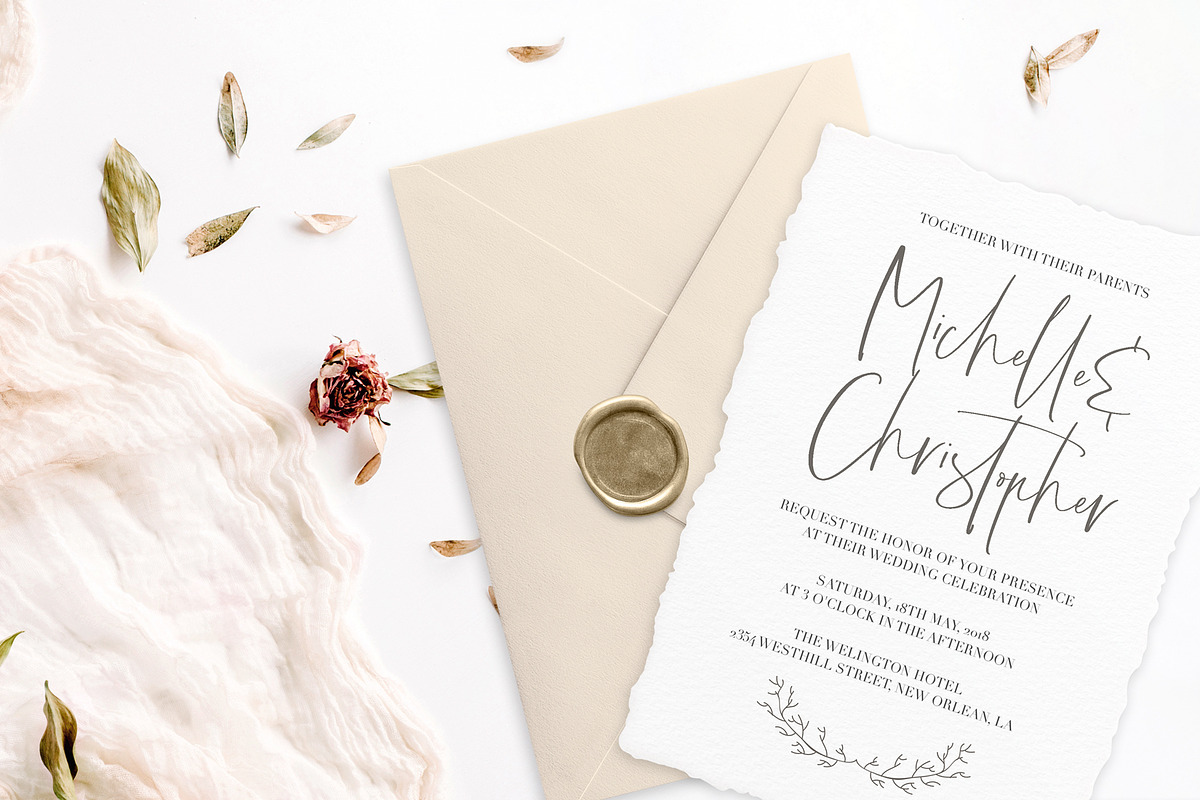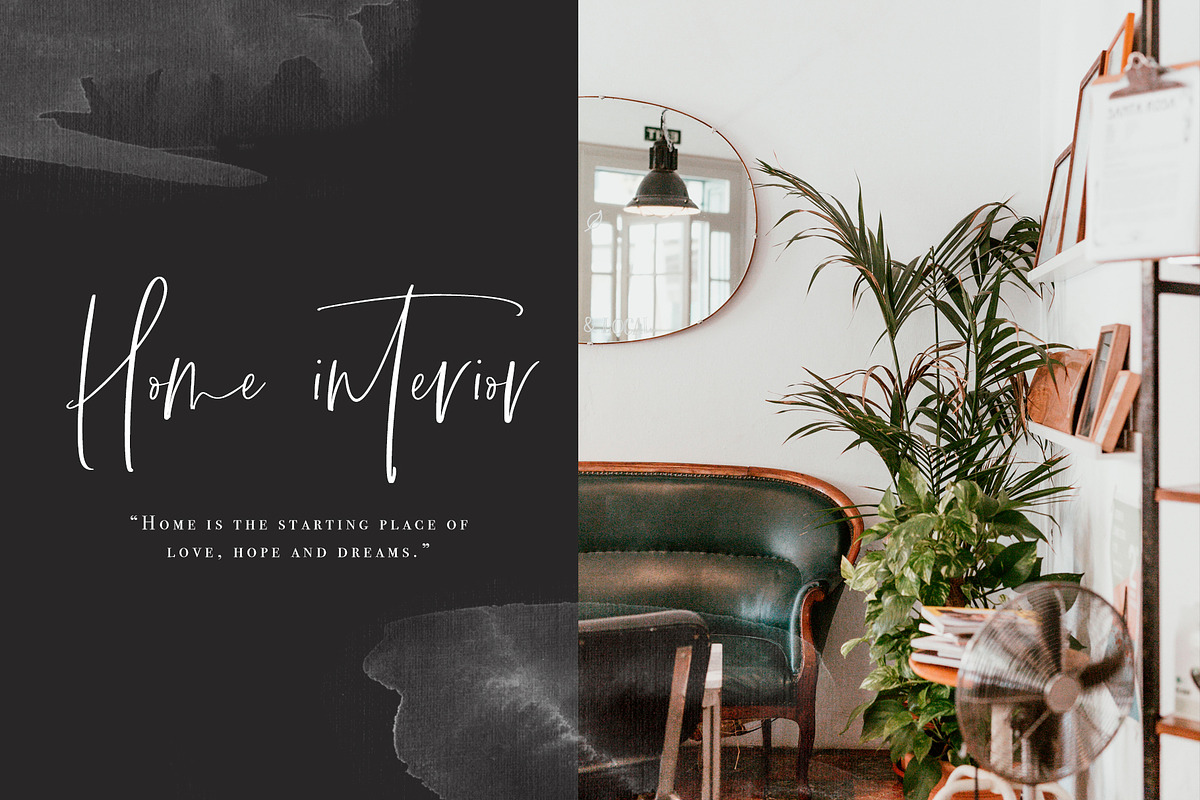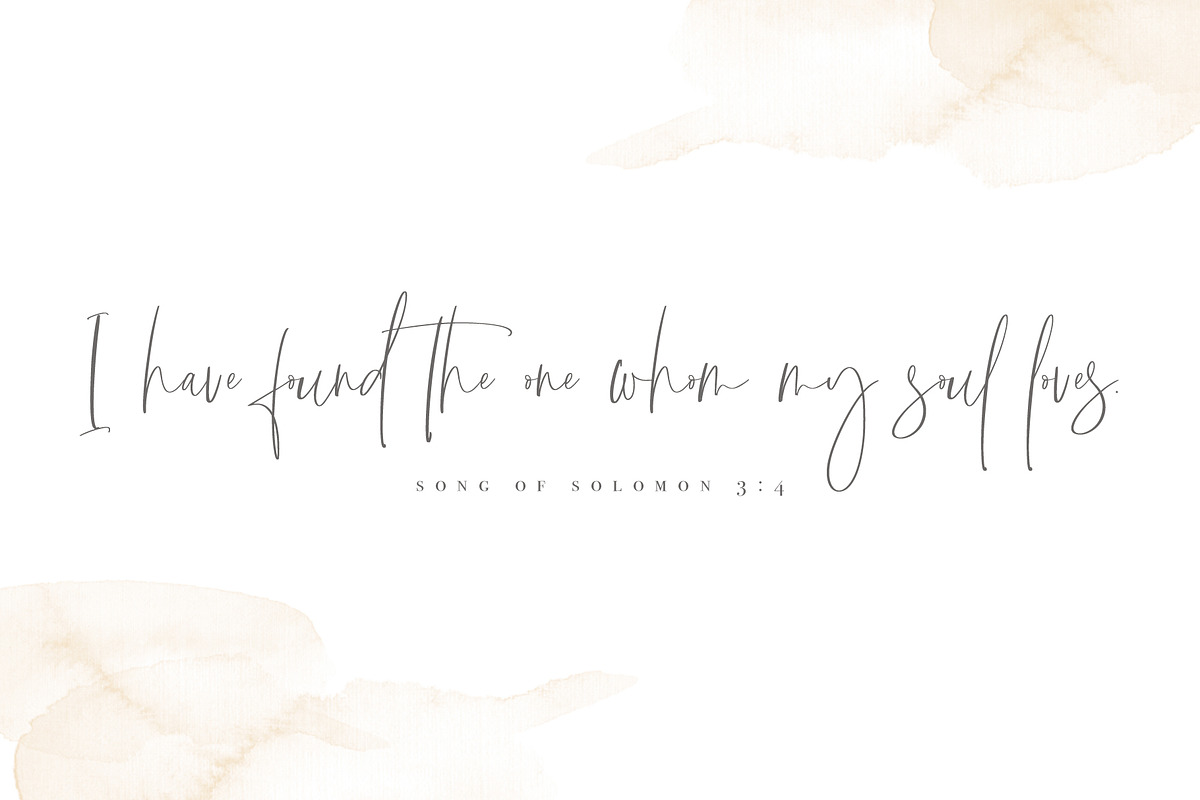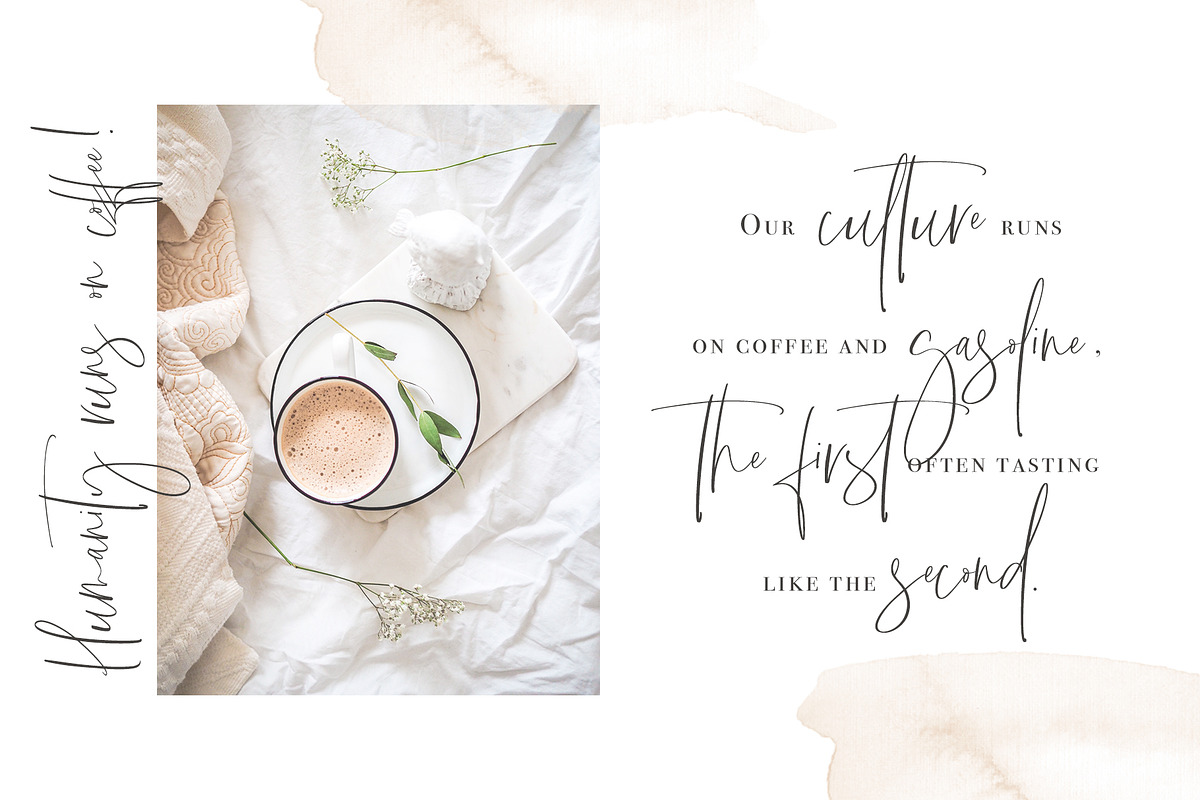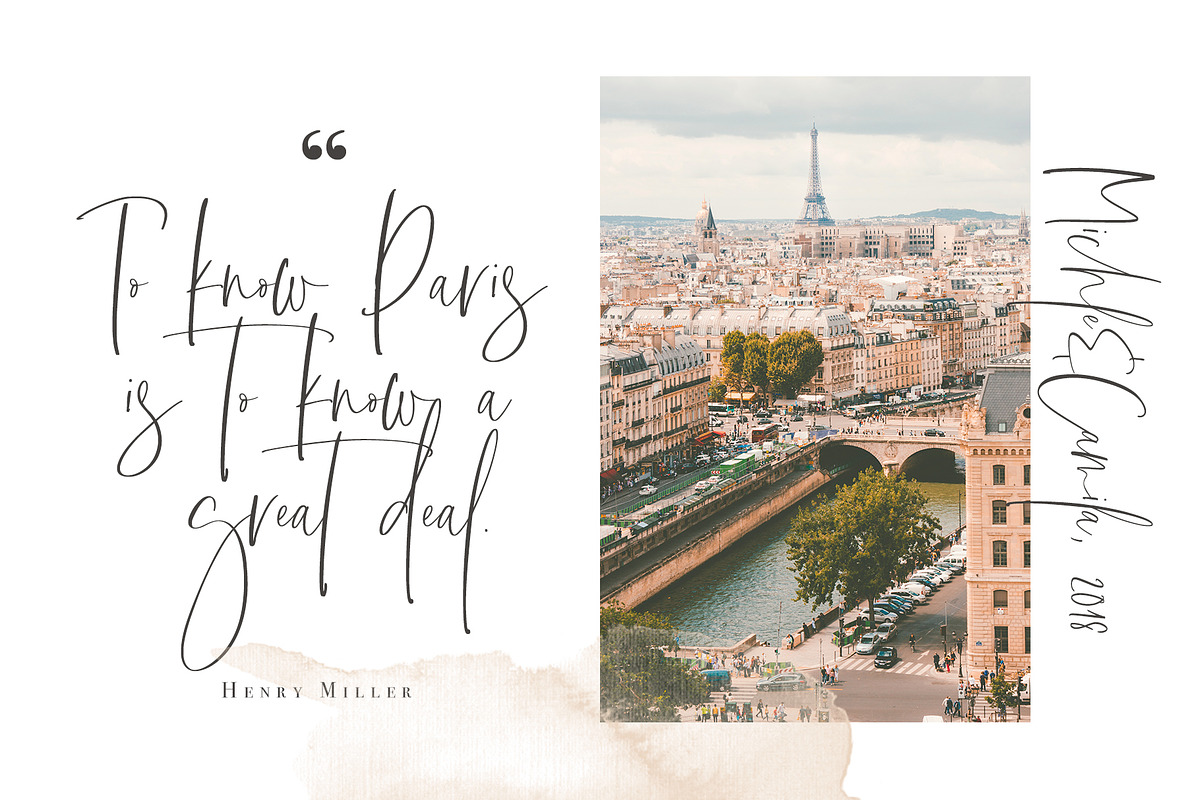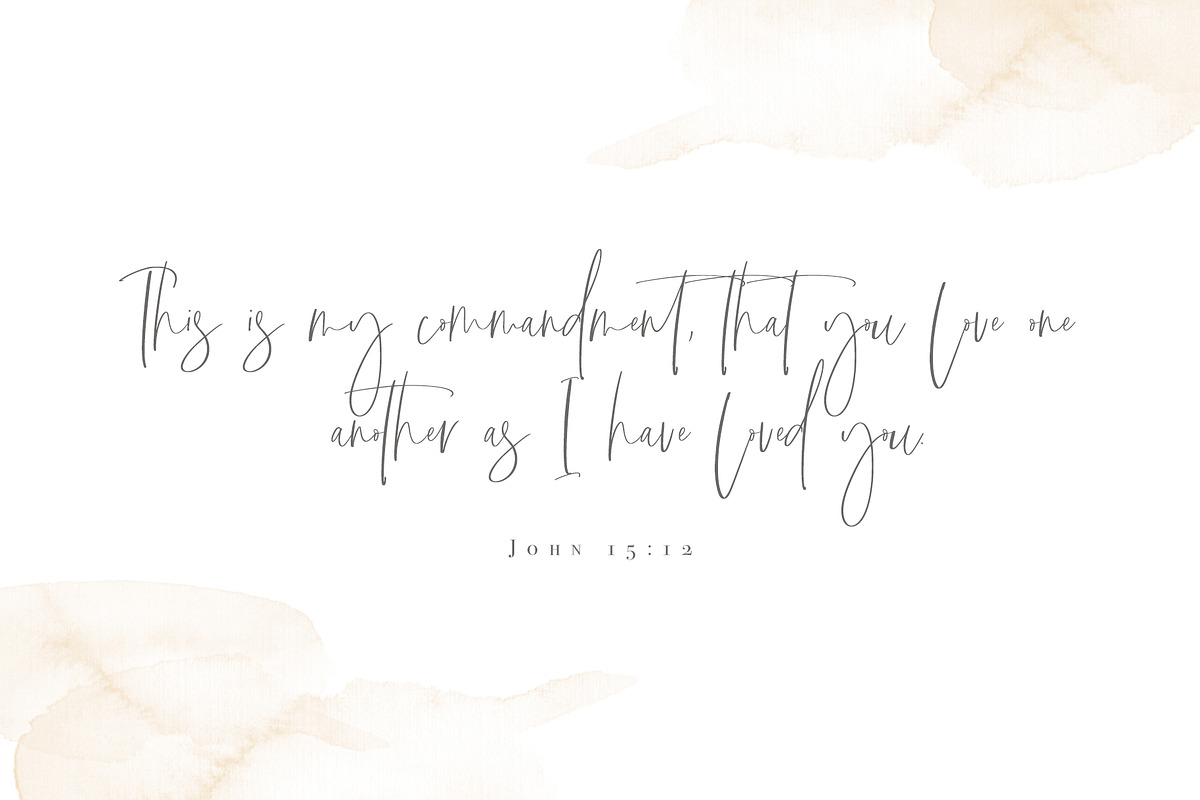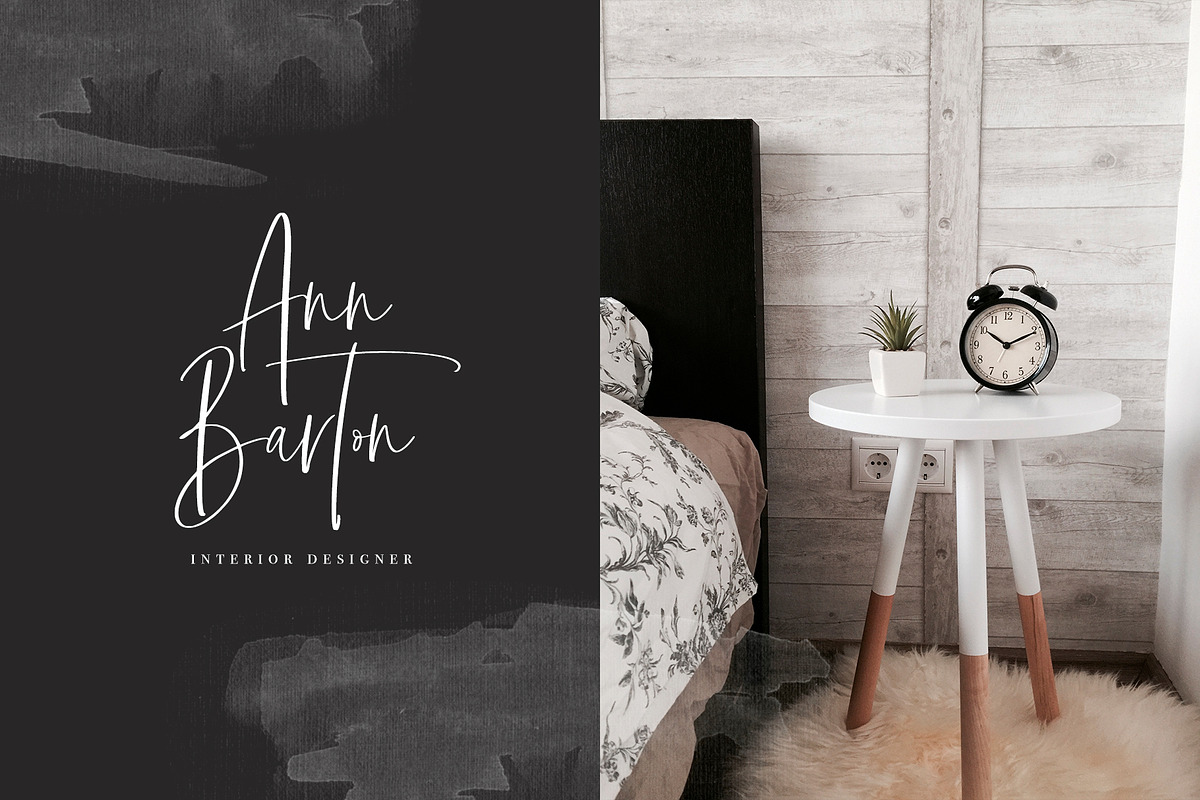
Creamy | Handwritten Font
Introducing you my new handwritten font Creamy, a modern signature font that is perfect for branding, social media headers, product packaging, wedding invites and cards and so on.
Creamy | Handwritten Font by Calamar Studio fits naturally into Branding, posters, packaging, typography.